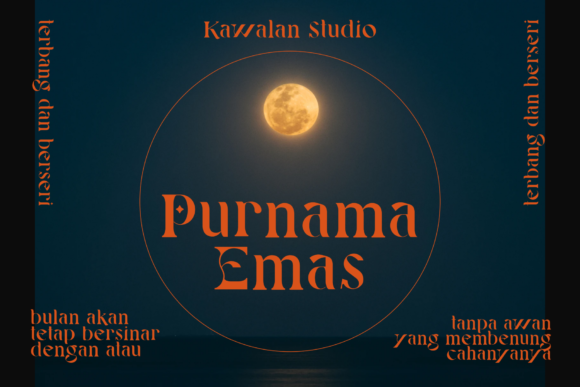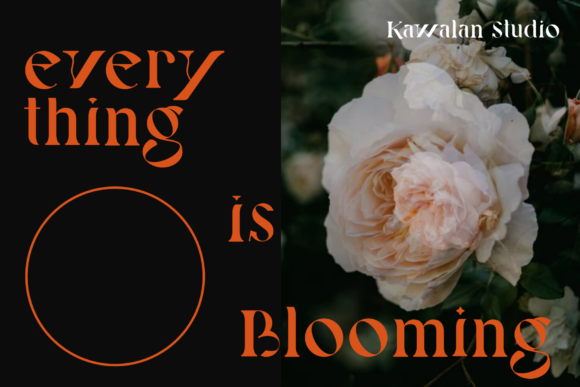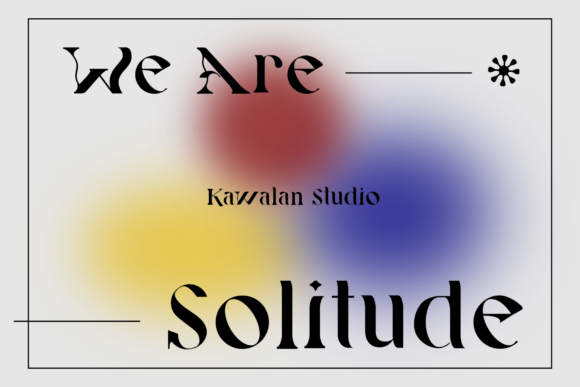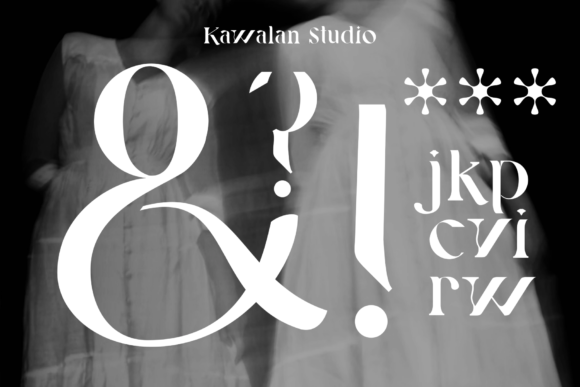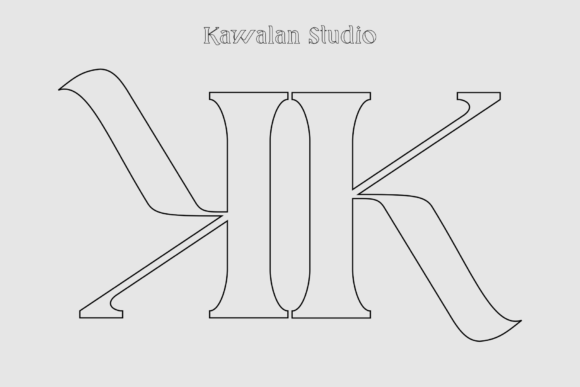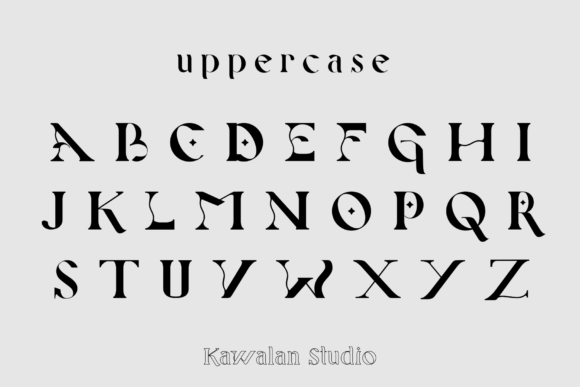
Introduction to Gerhana Bulan Font
Gerhana Bulan is a chic, trendy and wavy display font.
This font is imposing and features uniquely shaped letters, and as a result, it will easily match a wide range of creations that require a distinct touch .
Key Features of Gerhana Bulan Font
Why Choose Gerhana Bulan Font?
Gerhana Bulan Font offers exceptional quality and versatility, making it a valuable addition to your design toolkit. Whether you’re creating for personal projects or commercial use, Gerhana Bulan Font delivers professional results.